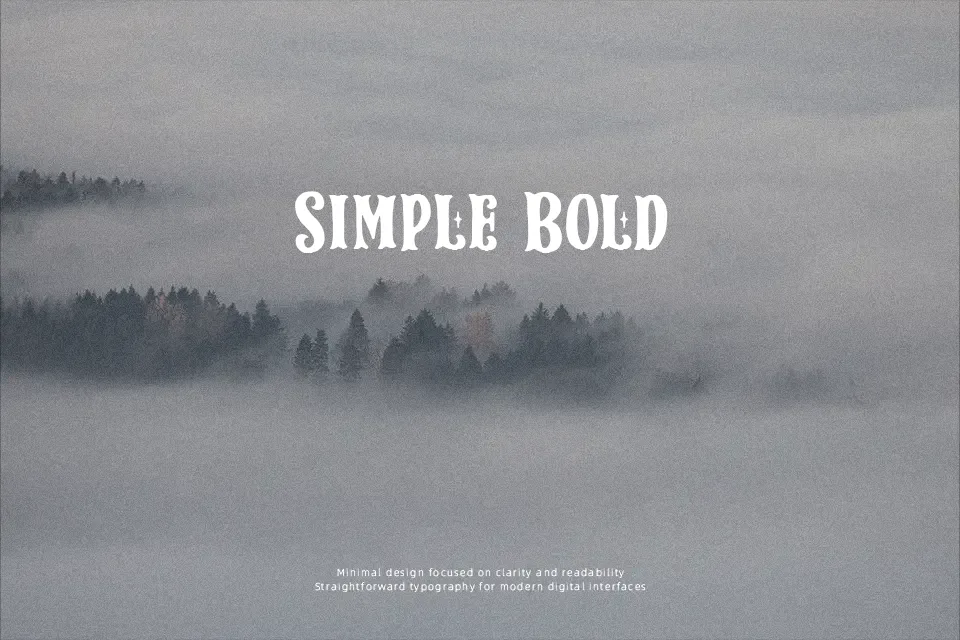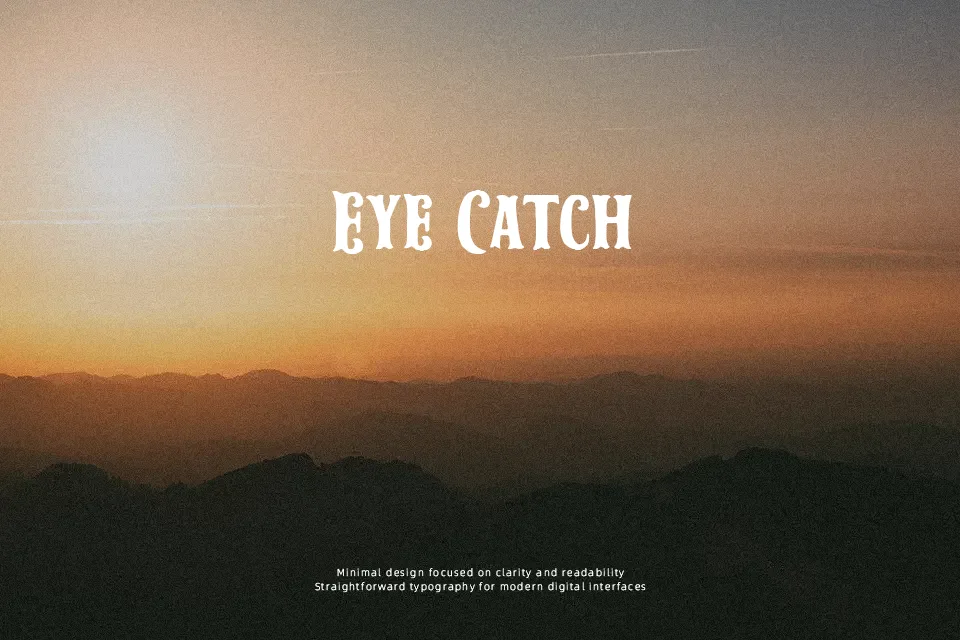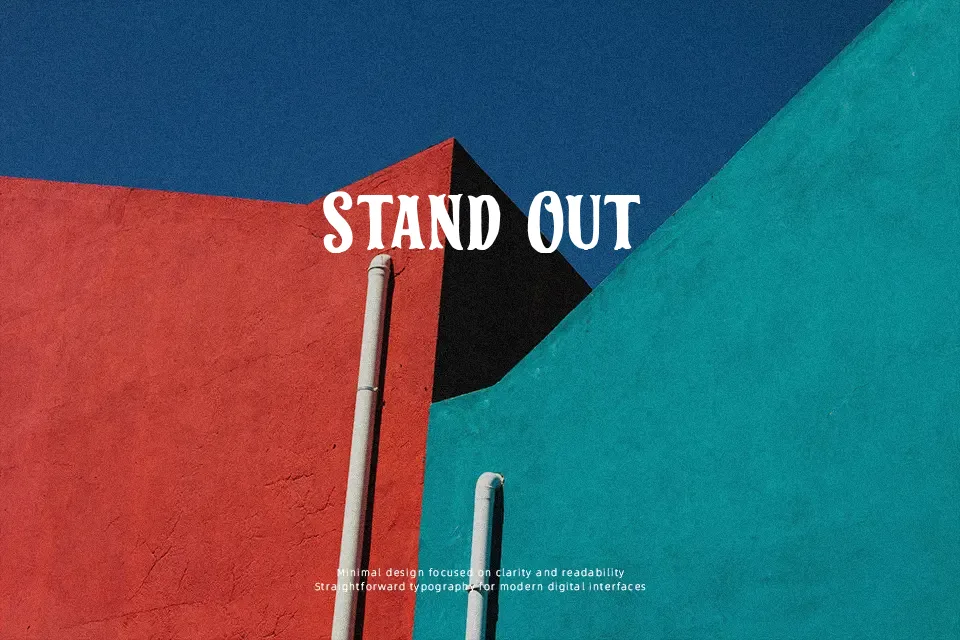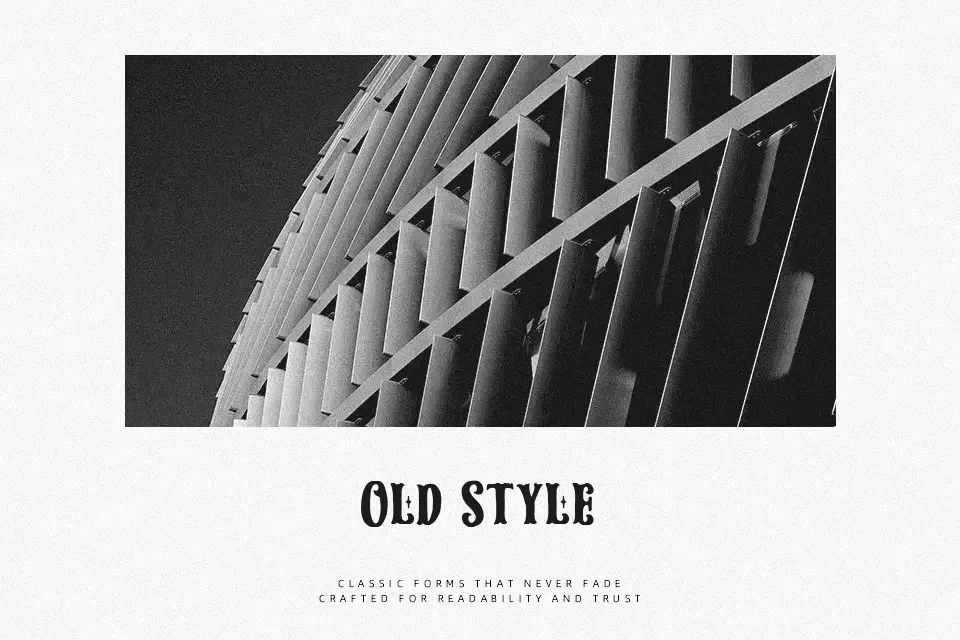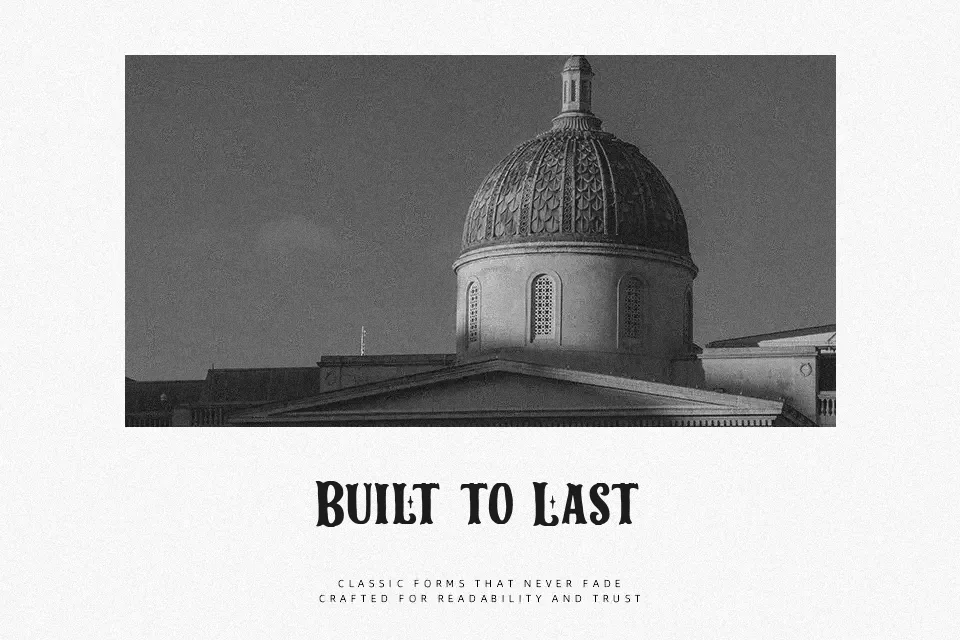
Spark Plug Font
Spark Plug Font uses heavy serif letterforms with sturdy proportions, pronounced terminals, and a compact display-oriented presence. The strokes appear consistently bold, giving uppercase words a dense, forceful rhythm that holds attention in larger settings. Its spacing is best suited to short phrases, where the forms remain distinct and visually balanced. The typeface works well for vintage-inspired labels, event graphics, and clothing designs needing an assertive headline. In smaller text, the thick details and decorative serif structure can make individual characters feel crowded, so it is more practical for display copy than extended reading.
Best For: vintage product packaging,apparel graphics,motorcycle event posters,short logo lettering
Perfect for fashion, headline, and logo, with a bold and decorative style.